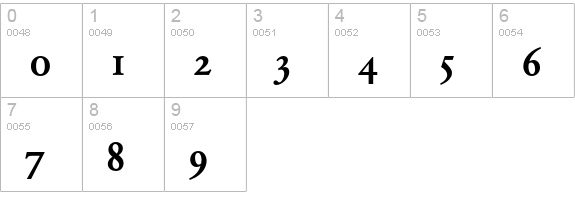
Garamond BE Medium Expert Font Details
Garamond BE Medium Expert is a balanced, medium-weight variant in the Garamond typeface family \xE2\x80\x94 well suited to sub-headlines, navigation, and balanced editorial work.
Garamond BE Medium Expert font is a classic and timeless typeface that exudes elegance and sophistication. Its medium weight strikes the perfect balance between readability and aesthetics, making it suitable for a wide range of design projects. With its refined letterforms and delicate curves, Garamond BE Medium Expert font adds a touch of sophistication to any text. Whether used in print or digital media, this font brings a sense of tradition and craftsmanship to your designs. One of the best features of Garamond BE Medium Expert font is its versatility. It is equally at home in both headlines and body text, making it an excellent choice for a variety of projects. Whether you're designing a book, a magazine layout, a logo, or a website, Garamond BE Medium Expert font will elevate your design to new heights. In addition to its aesthetic appeal, Garamond BE Medium Expert font is also a practical choice. Its excellent legibility ensures that your message is conveyed clearly and effectively. Whether reading a paragraph of text or scanning through a list of items, readers will have no trouble navigating the content. And the best part? Garamond BE Medium Expert font is freely available to download at FontsMarket.com. This means that you can enjoy the beauty and versatility of this font without any cost. Simply visit FontsMarket.com and start using Garamond BE Medium Expert font in your projects today. So, whether you're a professional designer or a typography enthusiast, Garamond BE Medium Expert font is a must-have in your font collection. Its timeless appeal, versatility, and the fact that it is freely available make it an excellent choice for any design project. Download Garamond BE Medium Expert font today and elevate your designs to a whole new level.